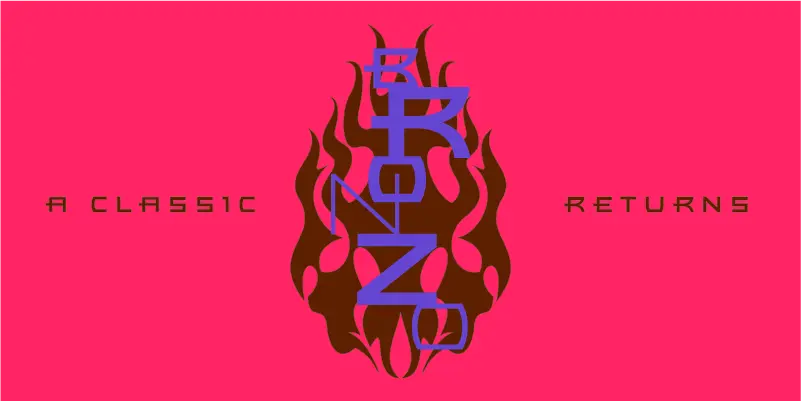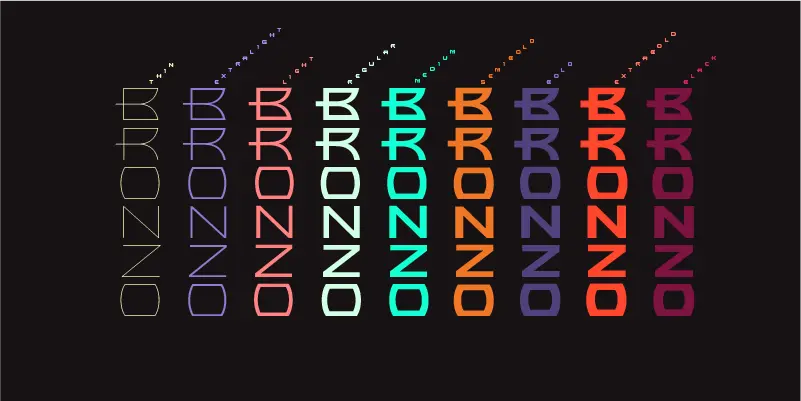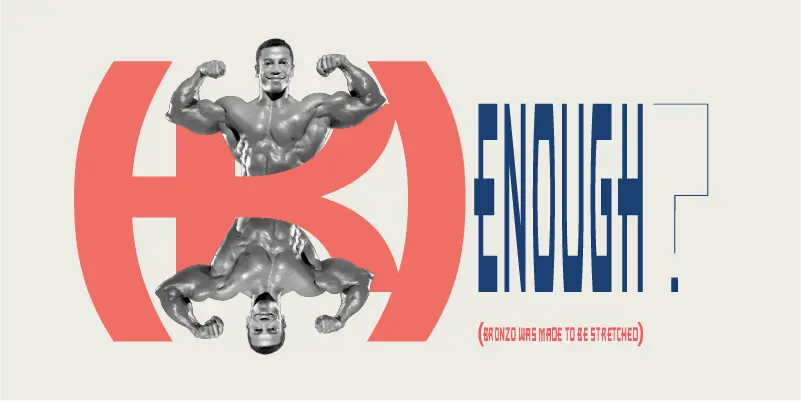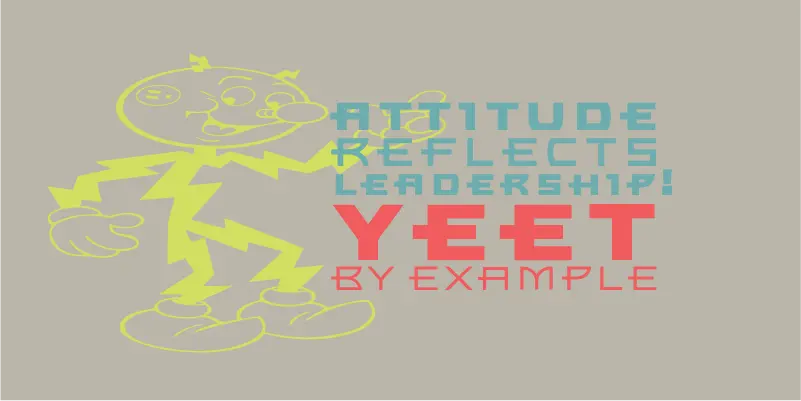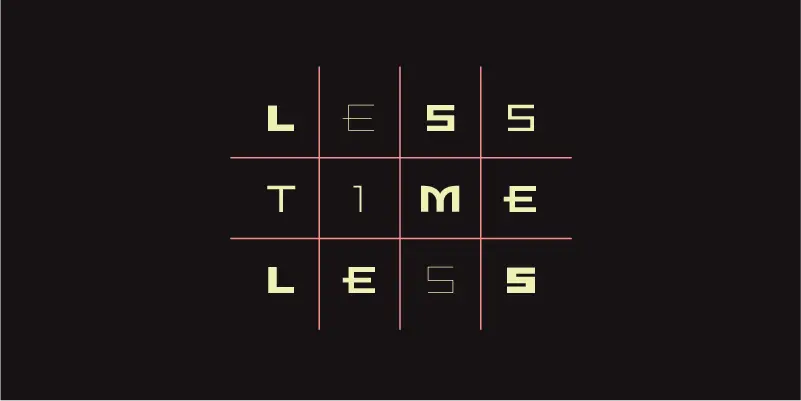
Bronzo
Bronzo’s shapes are a distillation of durable ideas that appear repeatedly throughout the last 150 years of type design. They can seem totalitarian in their forcefulness, looking very much like Russian Constructivist forms. Viewed through another lens, Bronzo has the grace of Geometric Art Deco. And viewed through still another, it’s as exuberant as American Streamline. Because of that multiplicity, I’ve always considered Bronzo a syllabary for display typeface design. It’s sort of an ur-typeface for Patric.